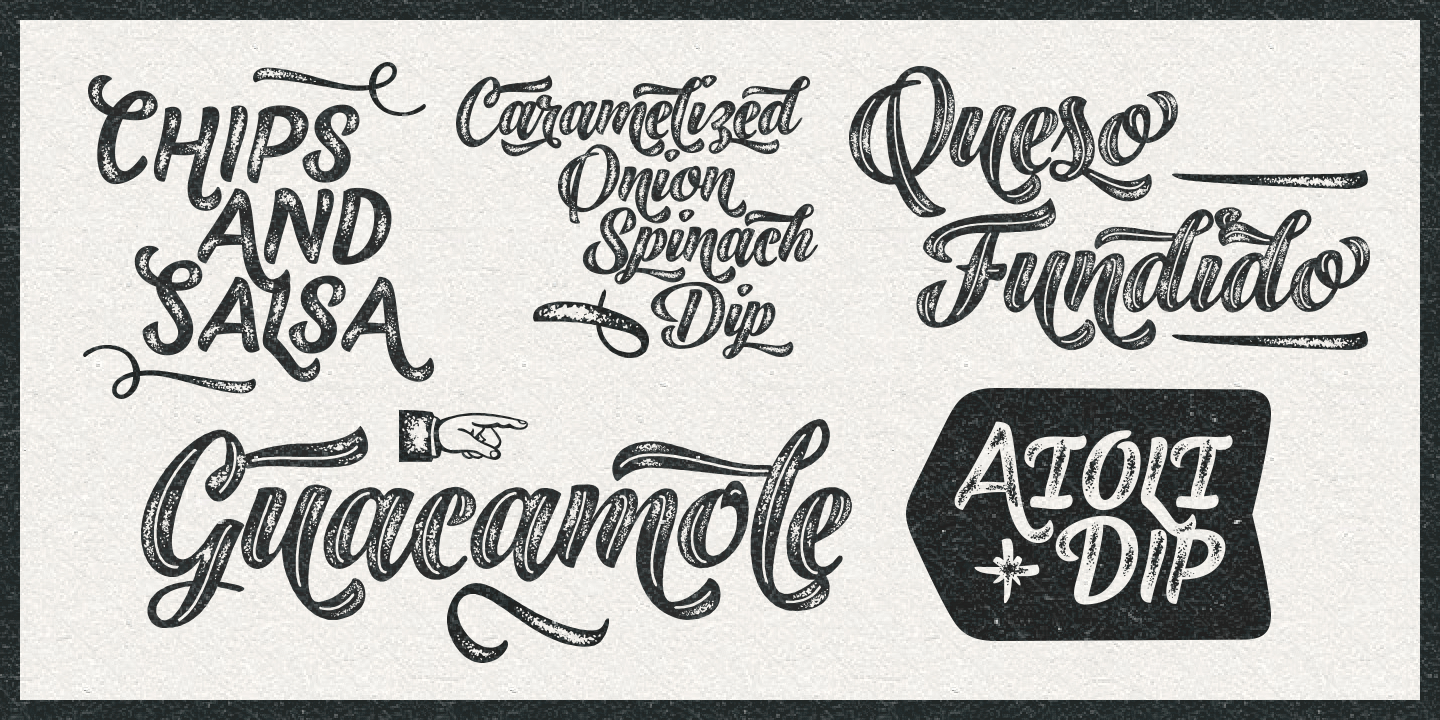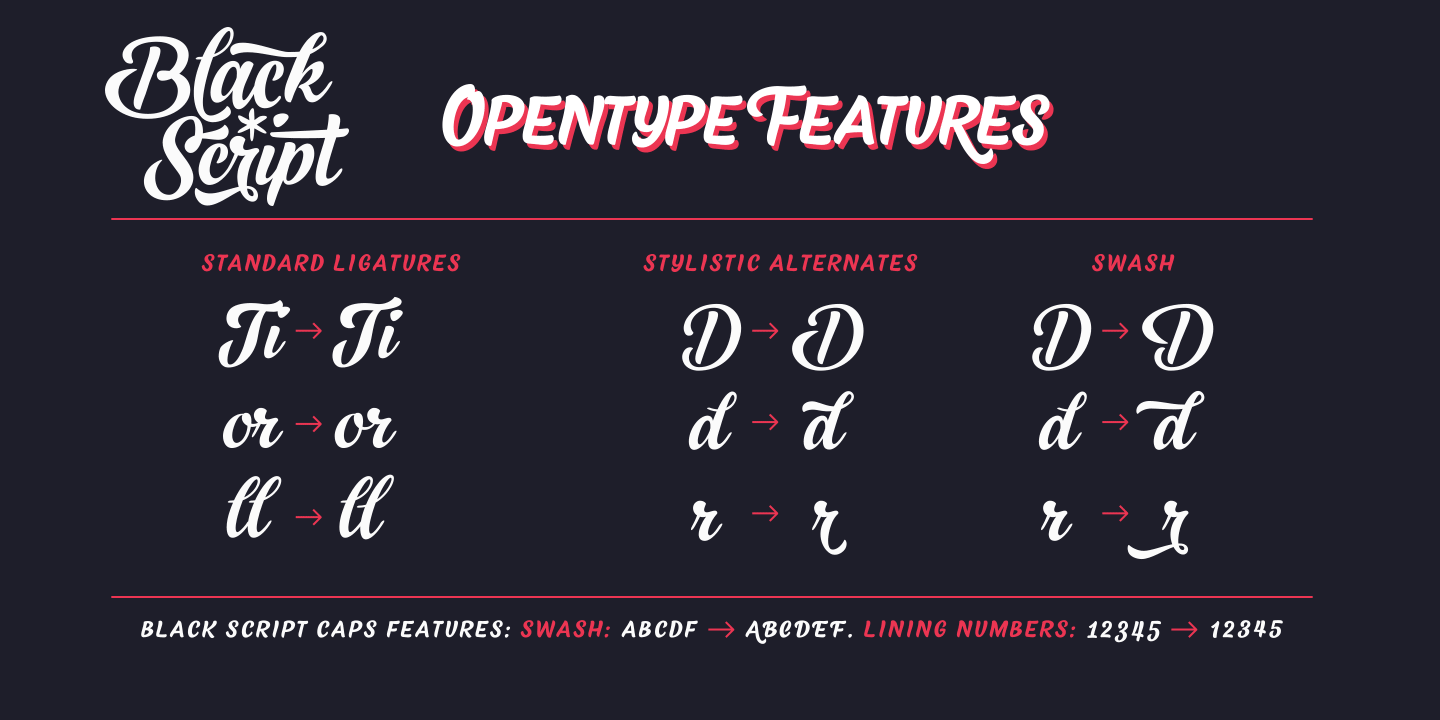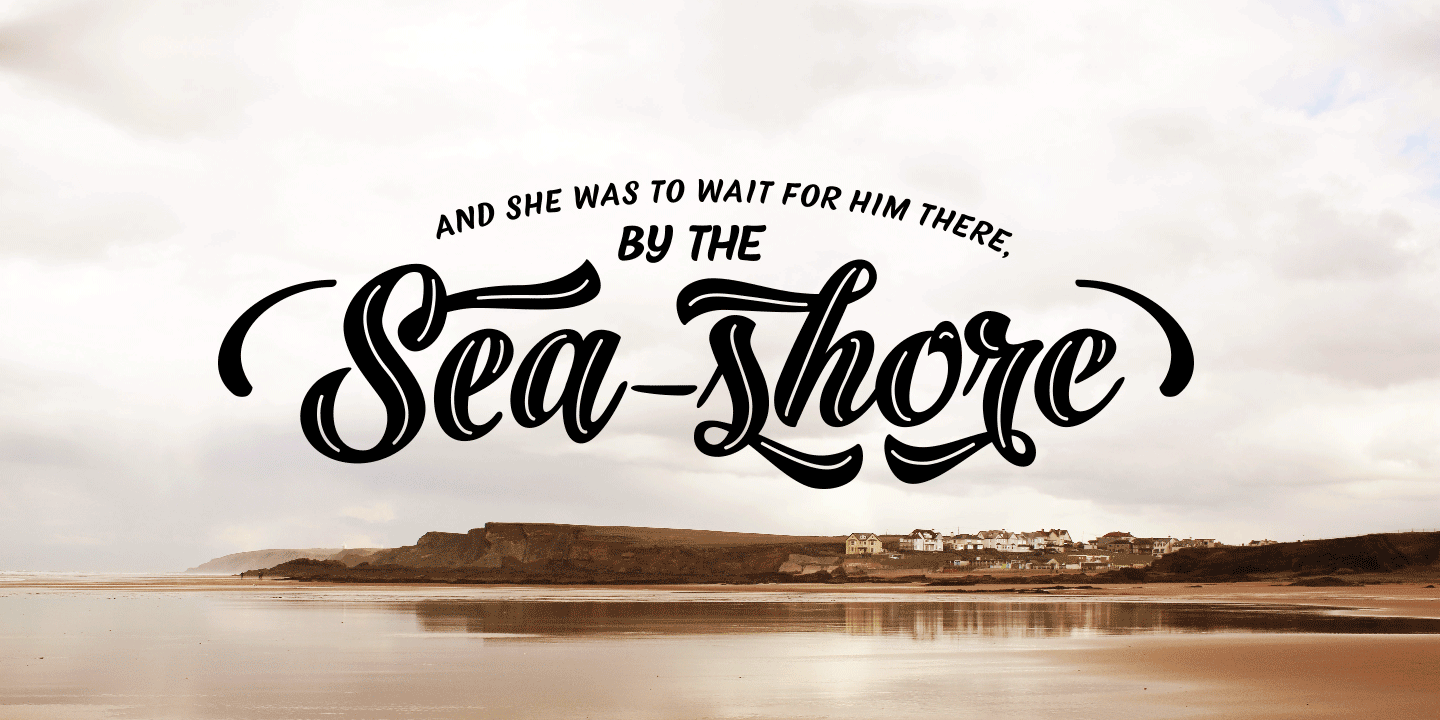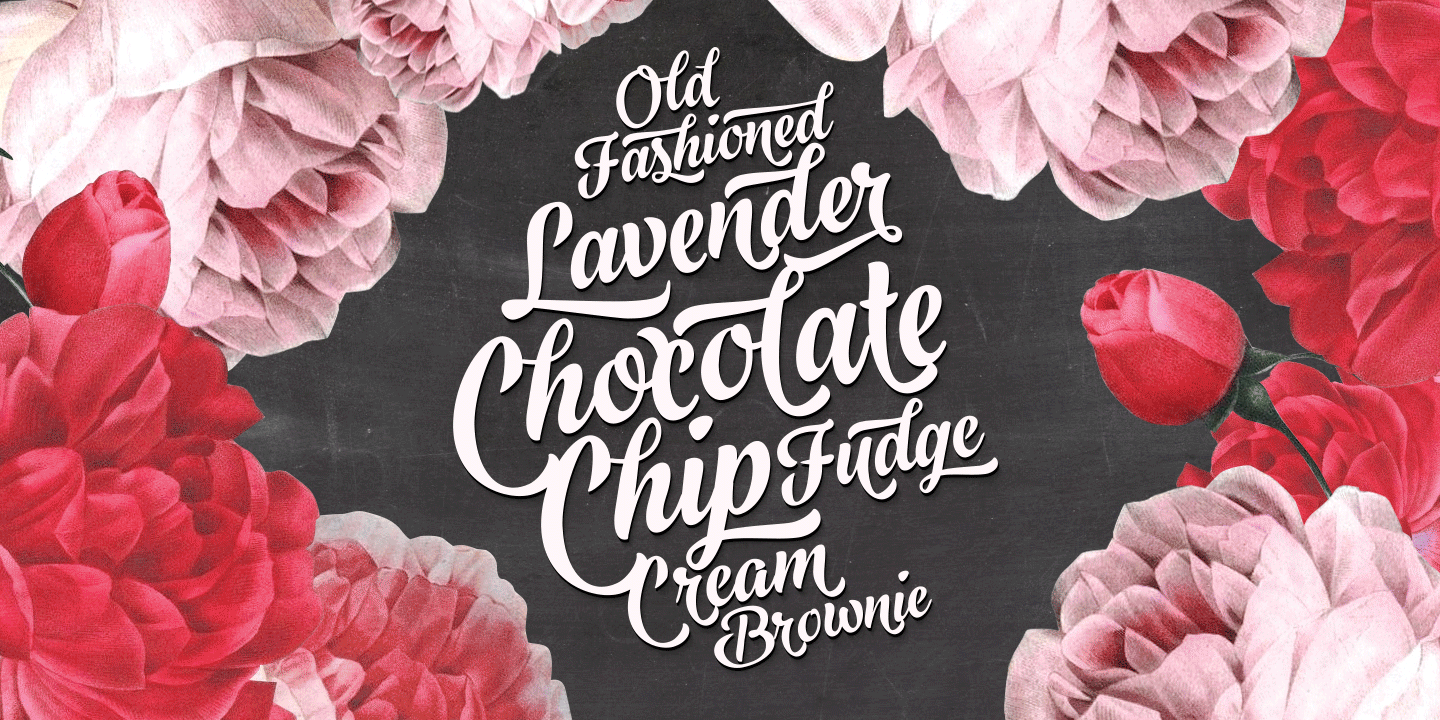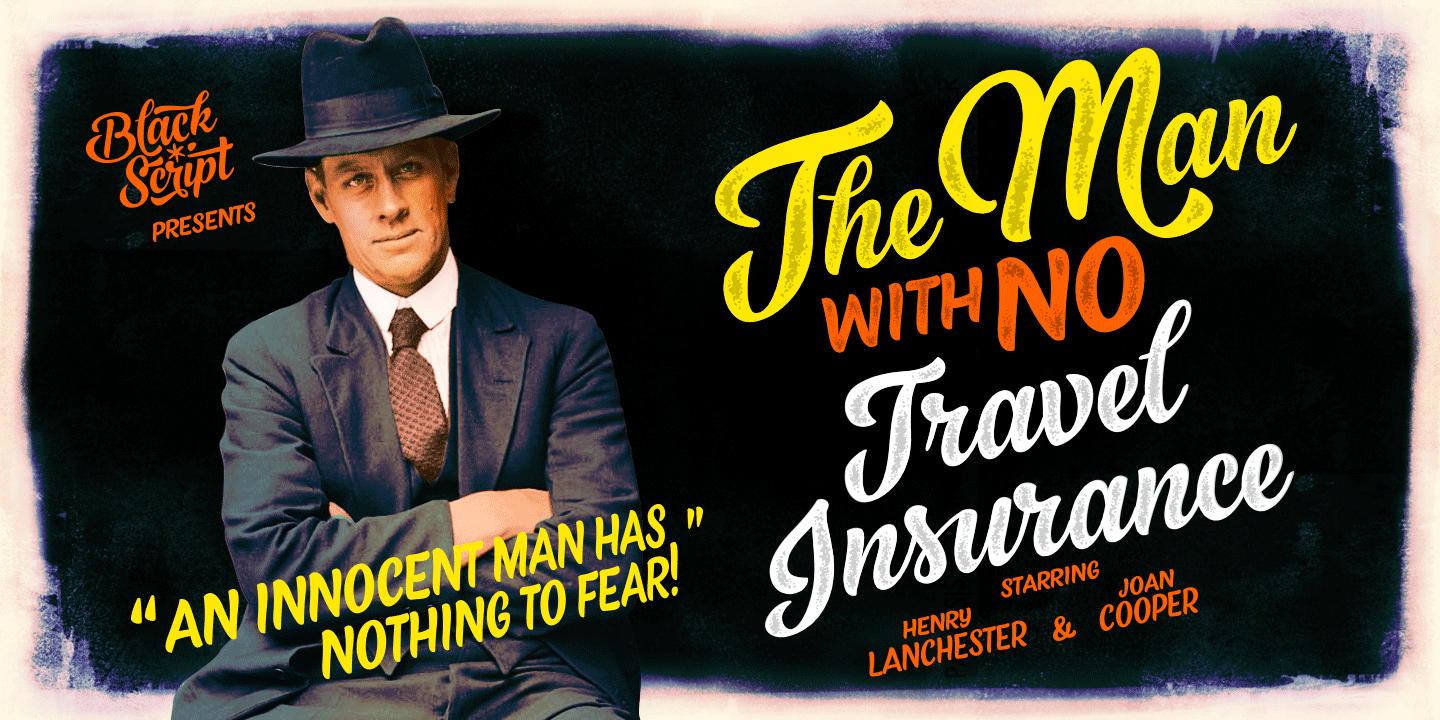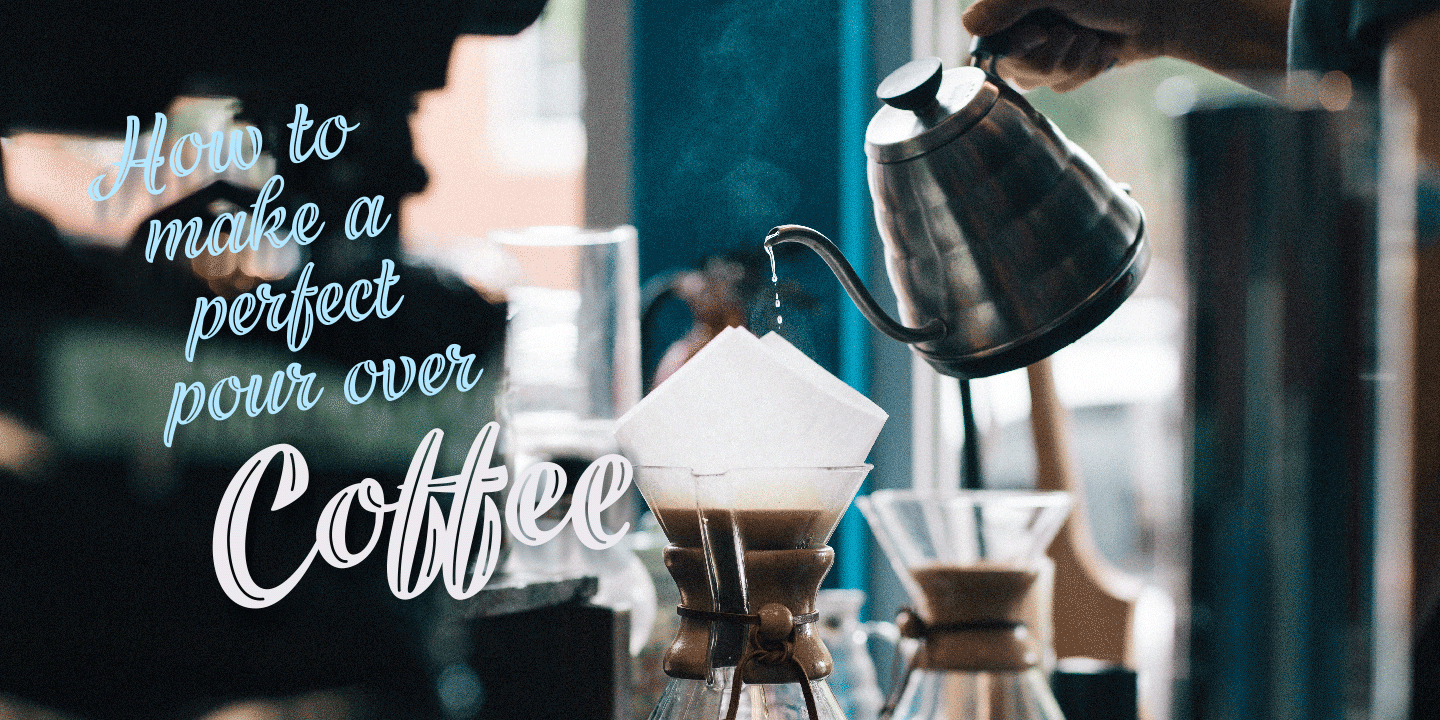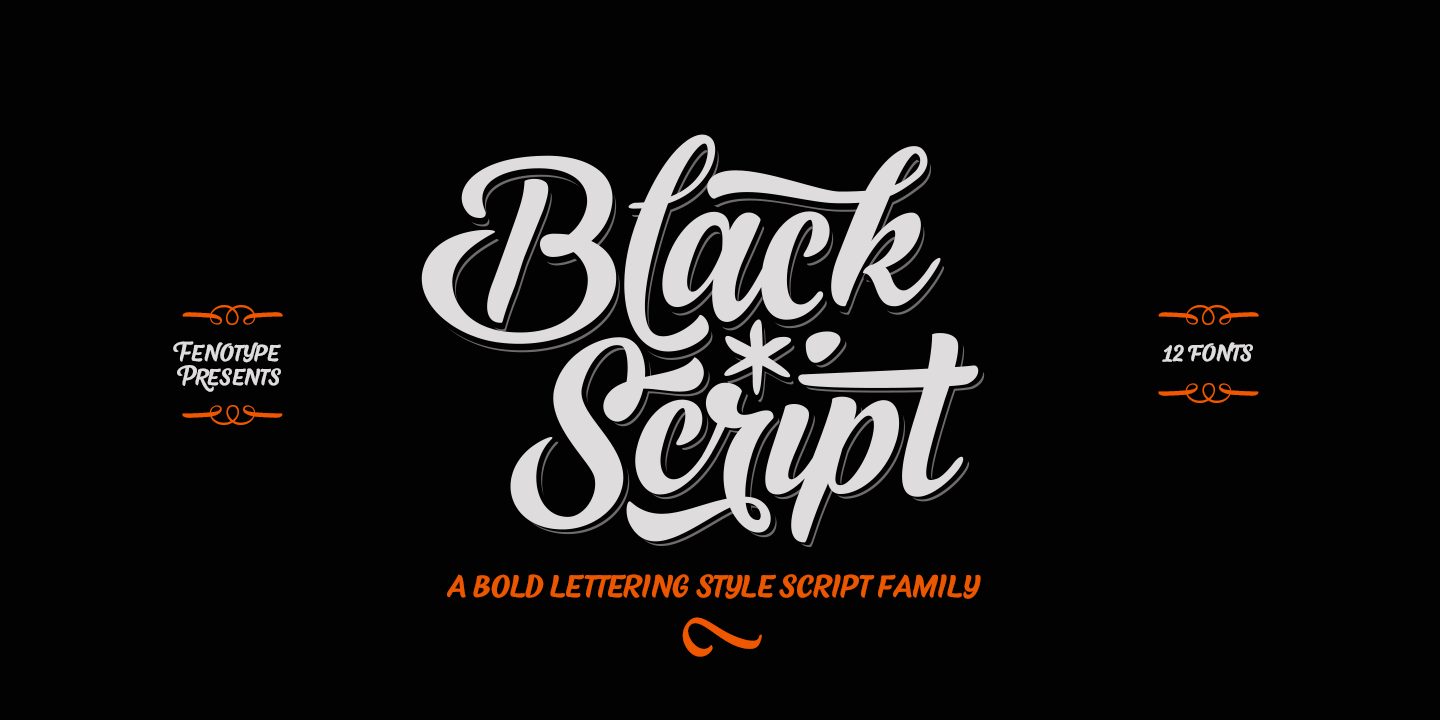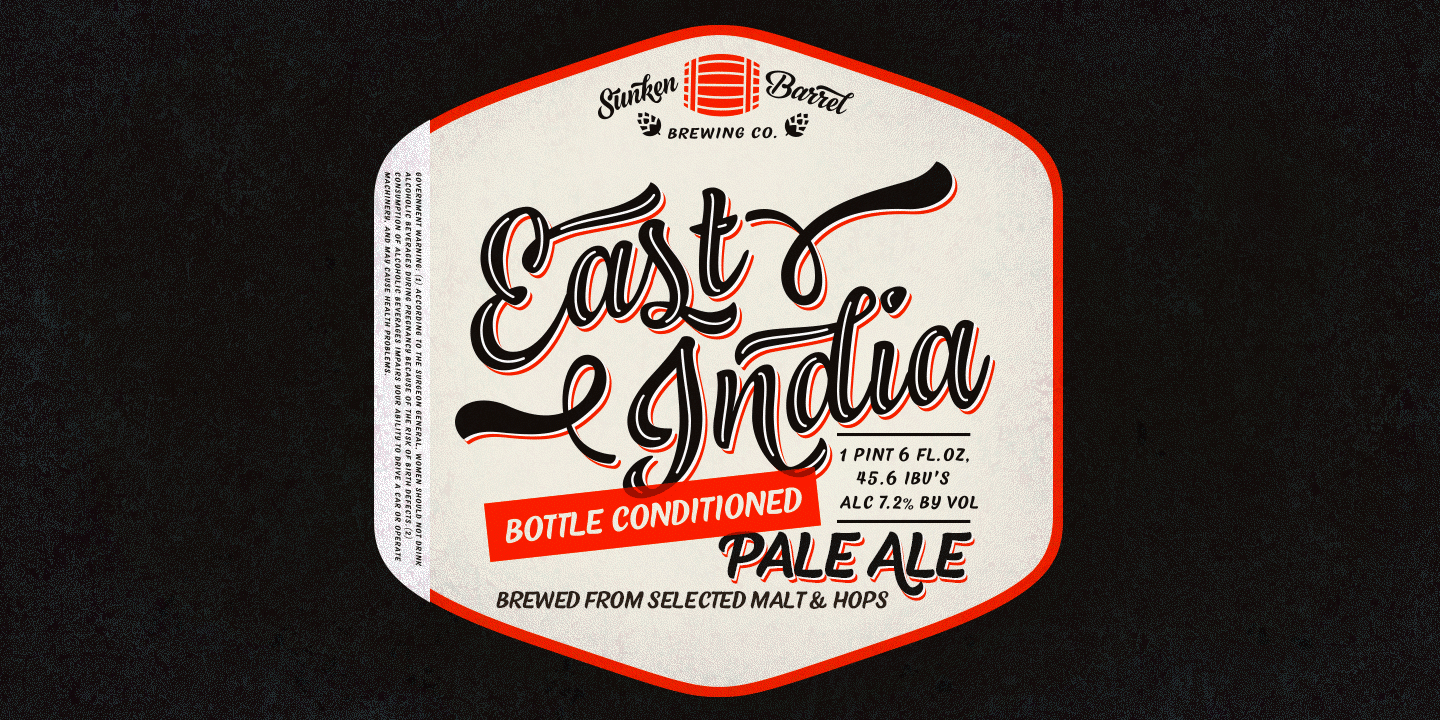
Black Script Family (12 fonts)
Black Script is equipped with automatic OpenType Ligatures, Swash and Stylistic Alternates to let you customize your designs. Find even more alternates from Glyph Palette. Black Script Caps is a block letter font designed to work alone or to support the script. Caps is equipped with Swash alternates.
Black Script is a great font family for creating ambitious headlines, logos & posters with a custom-made feeling.